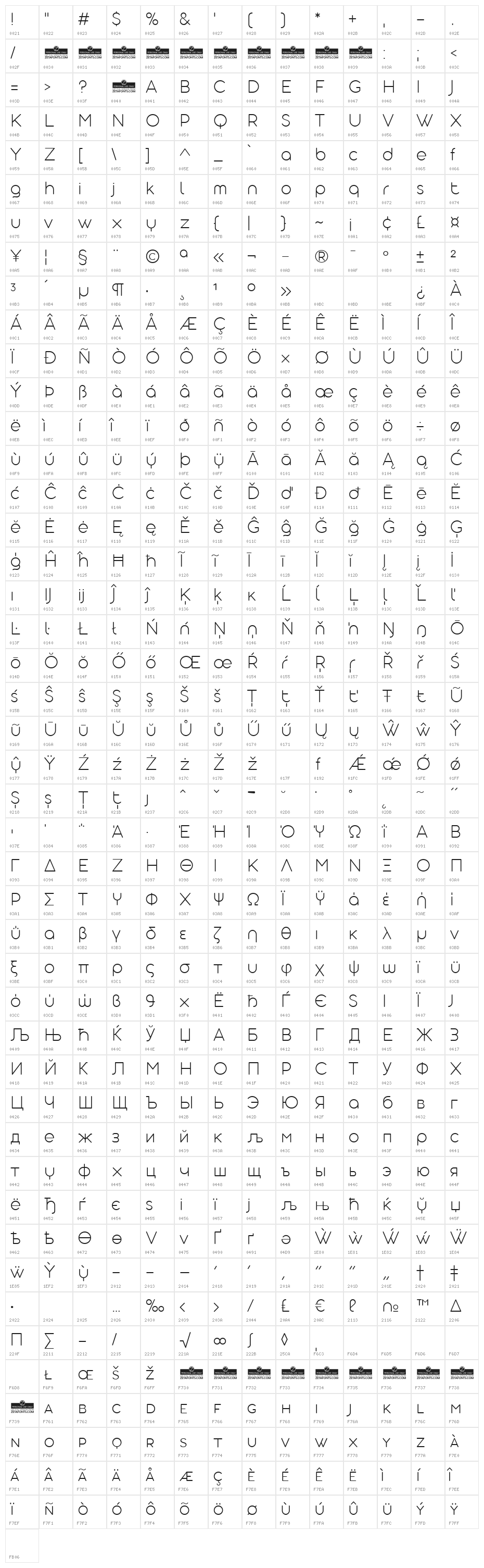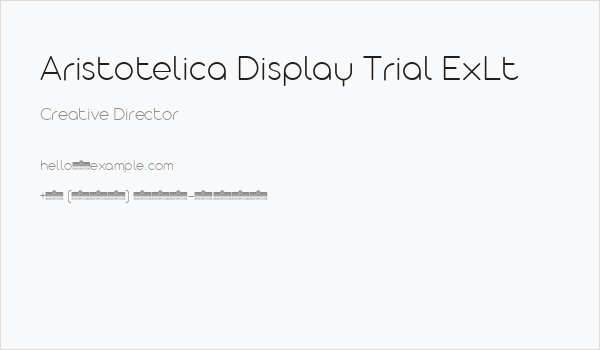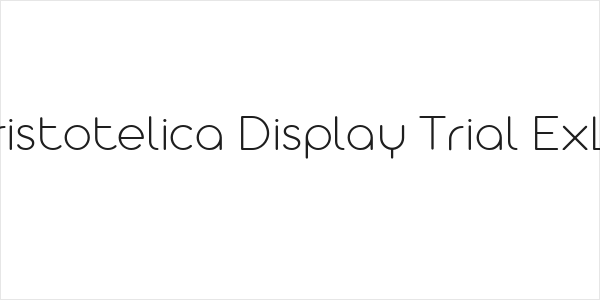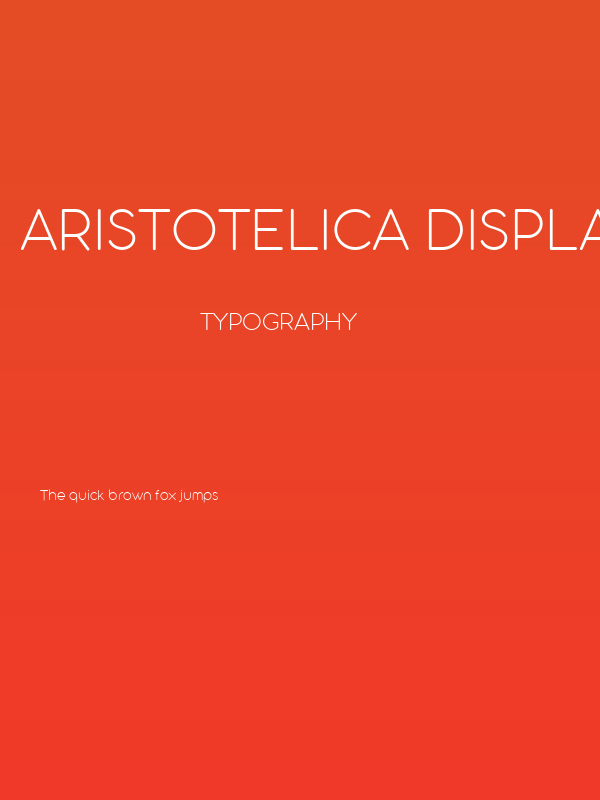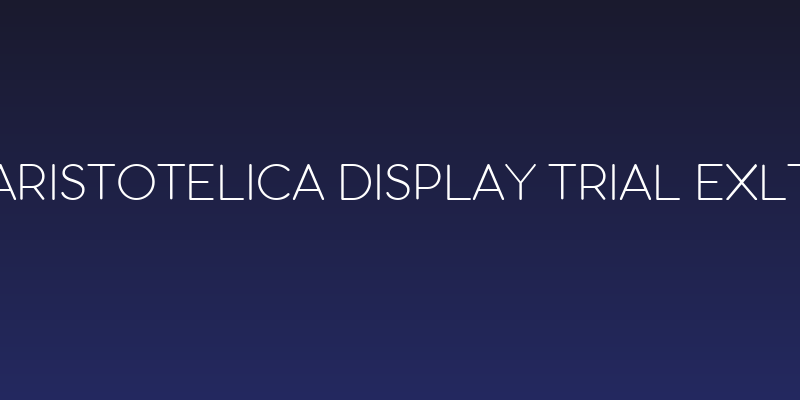
Aristotelica Display Trial ExLt Font
Aristotelica Display Trial ExLt Description
This font features a clean, geometric design with a modern aesthetic. The characters are crafted with a minimalist approach, emphasizing simplicity and clarity. The uppercase and lowercase letters maintain a consistent stroke width, contributing to a uniform appearance. The rounded edges and smooth curves give it a friendly and approachable feel. The numerals and special characters are designed to complement the alphabet, maintaining the same geometric style. This font is versatile, suitable for various design applications where a contemporary and sleek look is desired.
Proposed ProjectsIdeal for branding, advertising, web design, and editorial projects where a modern and sleek aesthetic is required.